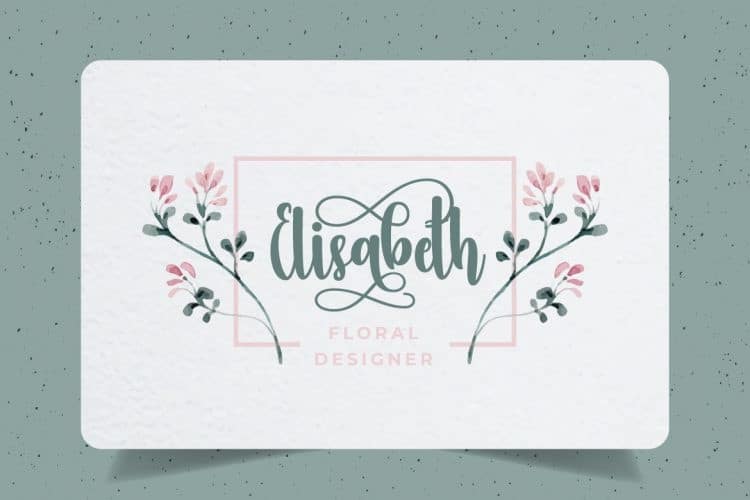
Hello guys. Ameliya Script Font is a hand calligraphy font, It’s interesting because it has a soft, clean, feminine, sensual, glamorous, simple and very easy to read typeface, because there are many fancy letter joints. It’s a beautiful and elegant script font. Fall in love with its authentic feel and use it to create gorgeous wedding invitations, beautiful stationary art, eye-catching social media posts, and cute greeting cards.